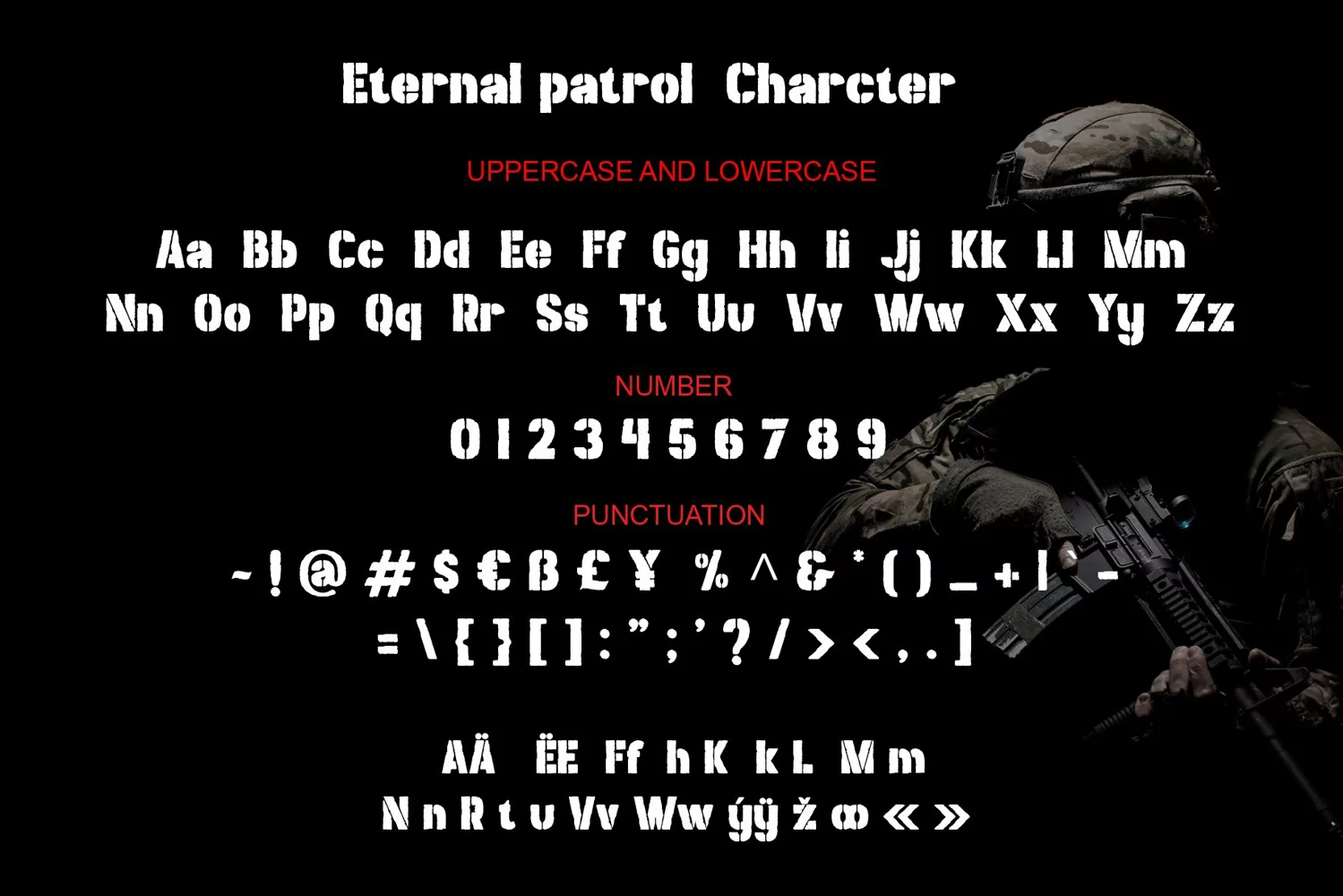
Eternal patrol
**Eternal patrol Font**
This pair was inspired by the Army poster design that i saw on some coffee shop, It was crafted by hand specially to add natural handmade feeling in its brand identity than i make it clean with pentool.
Eternal patrol font has 196 character set included
Eternal patrol Font is very good looking in logo, labels, t-shirt prints, product packaging, invitations, advertising and others.